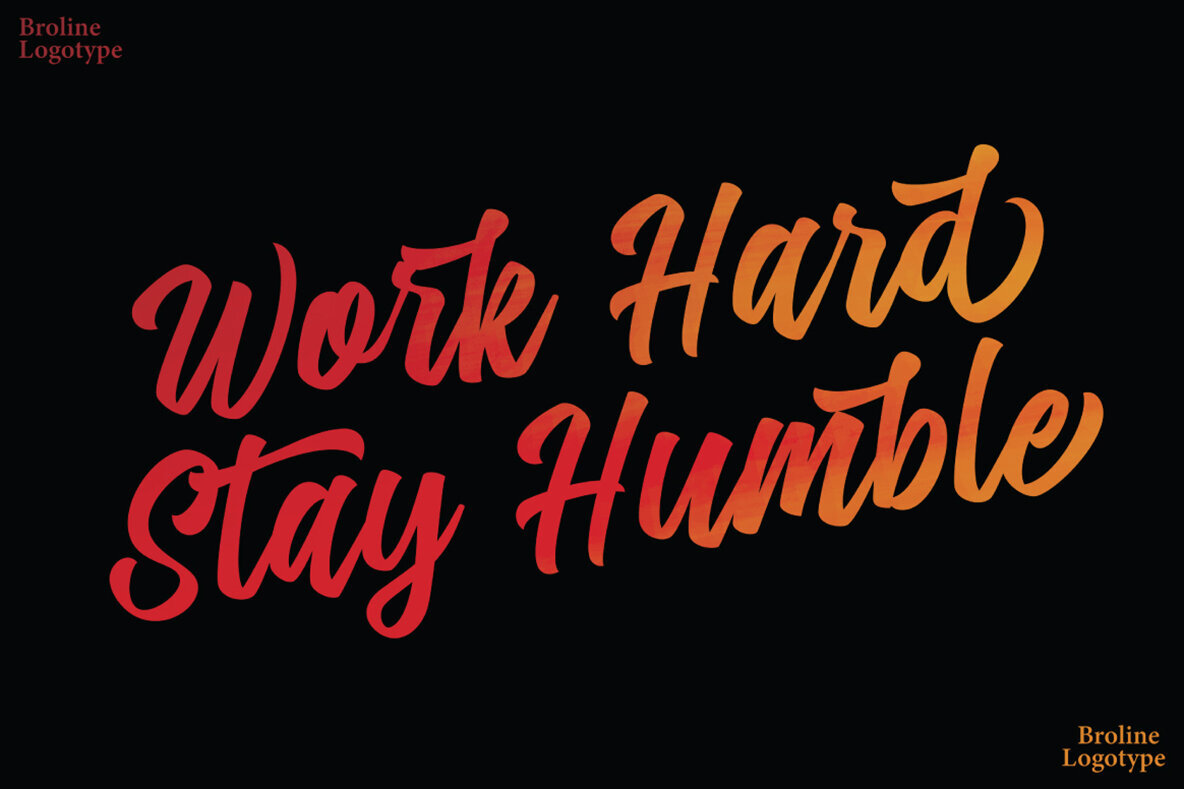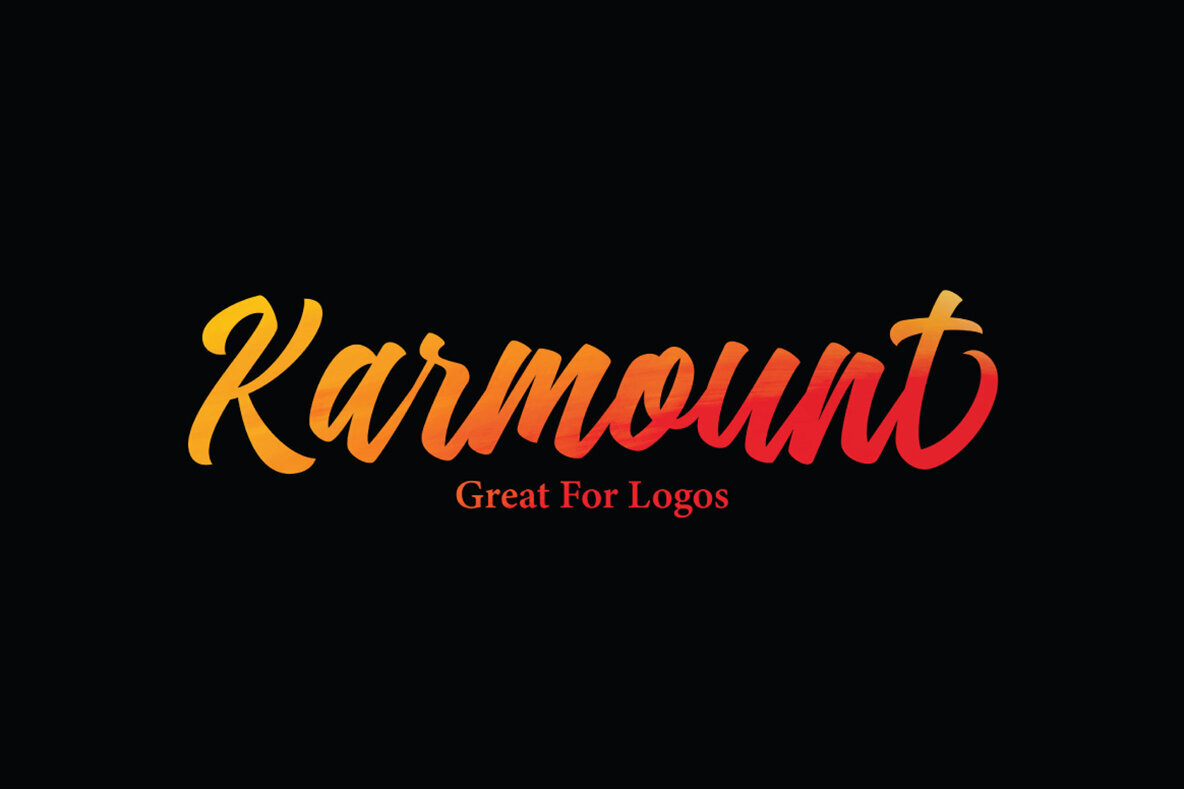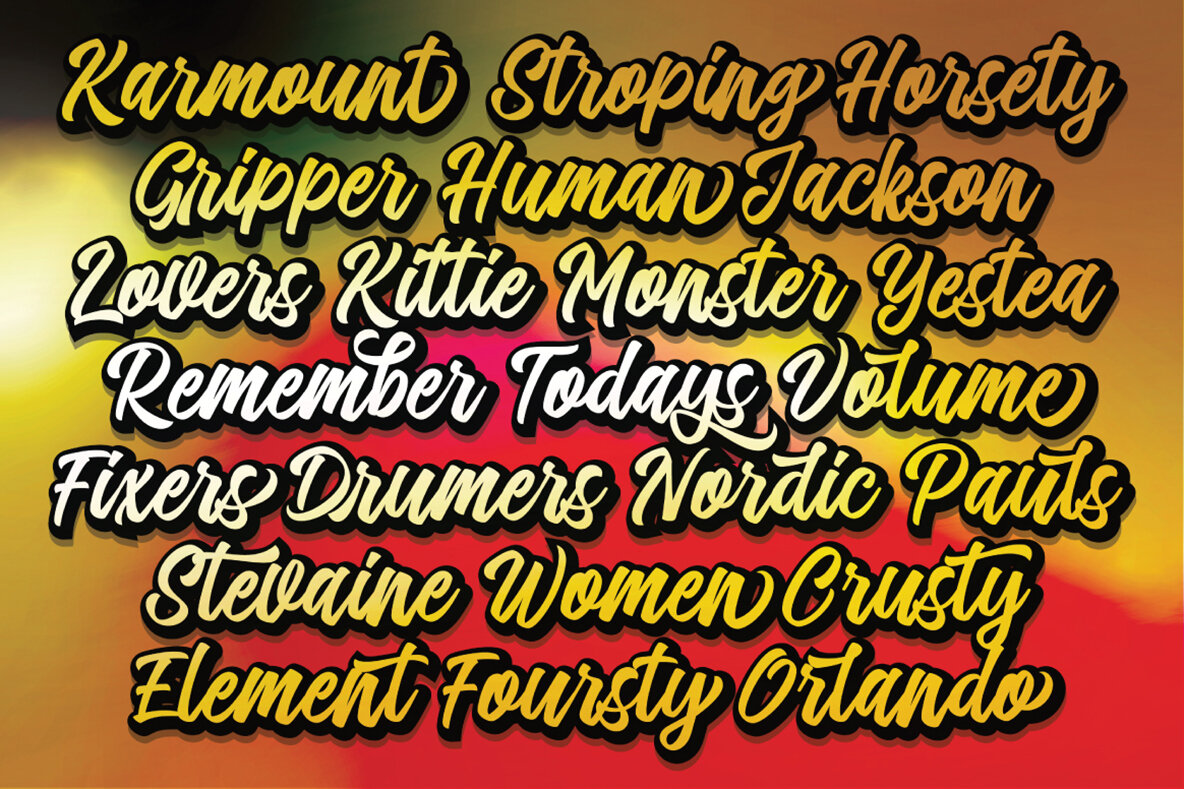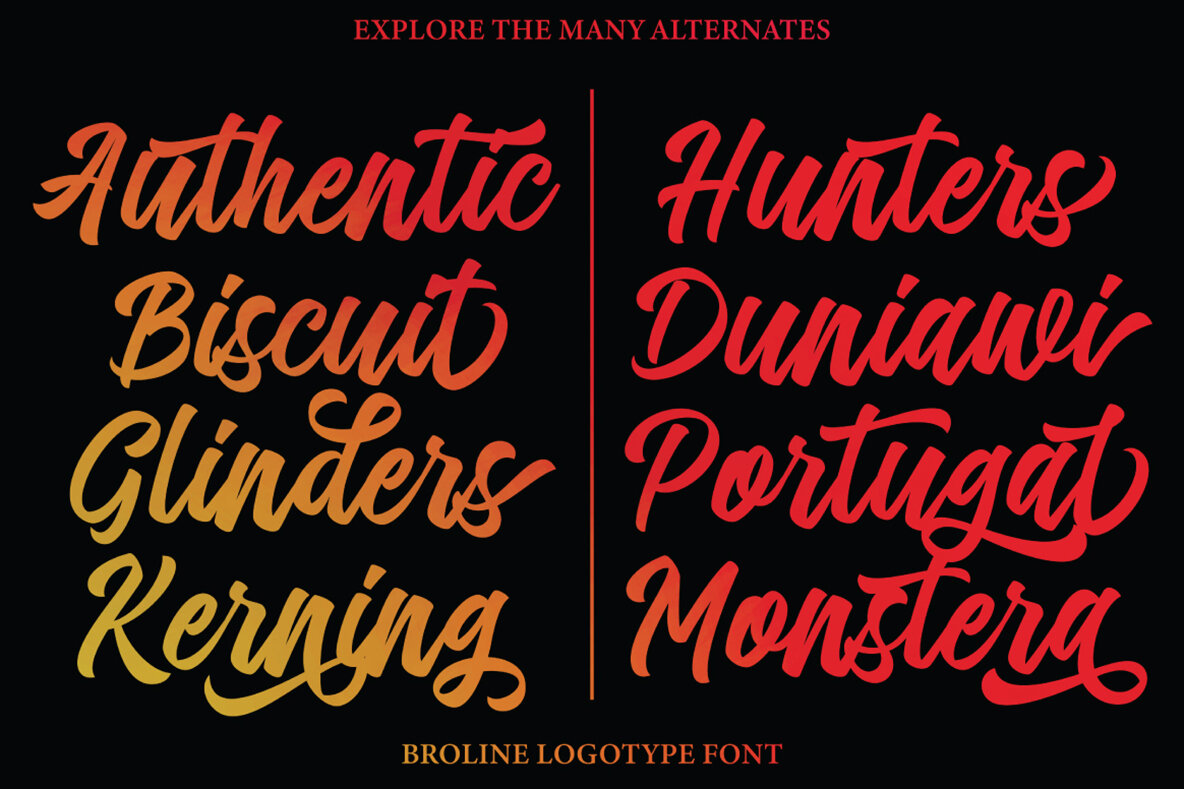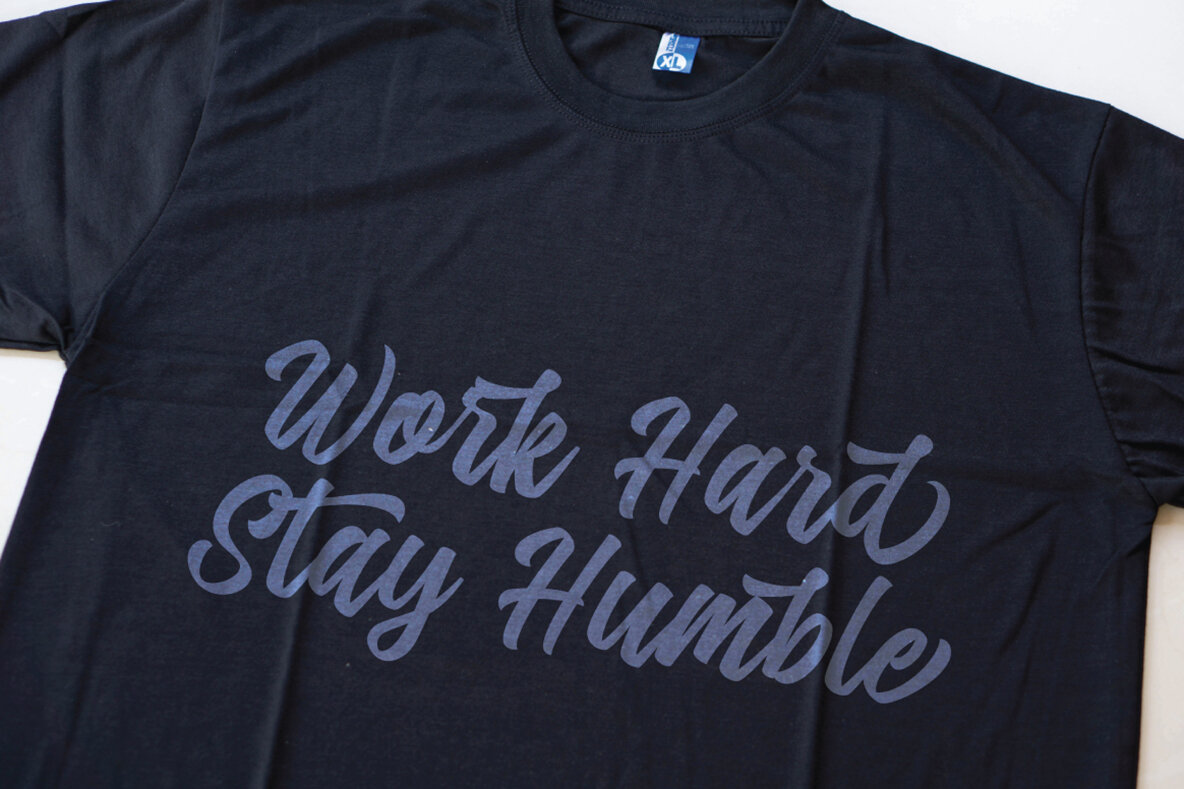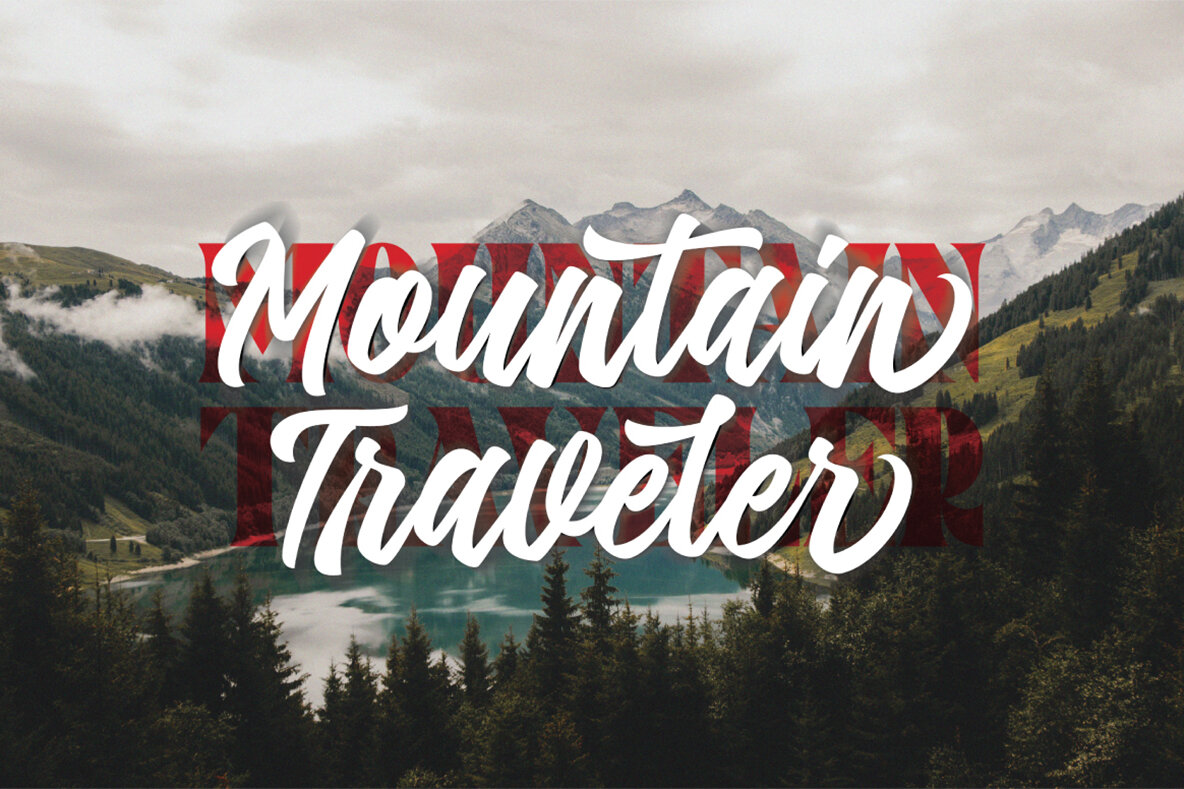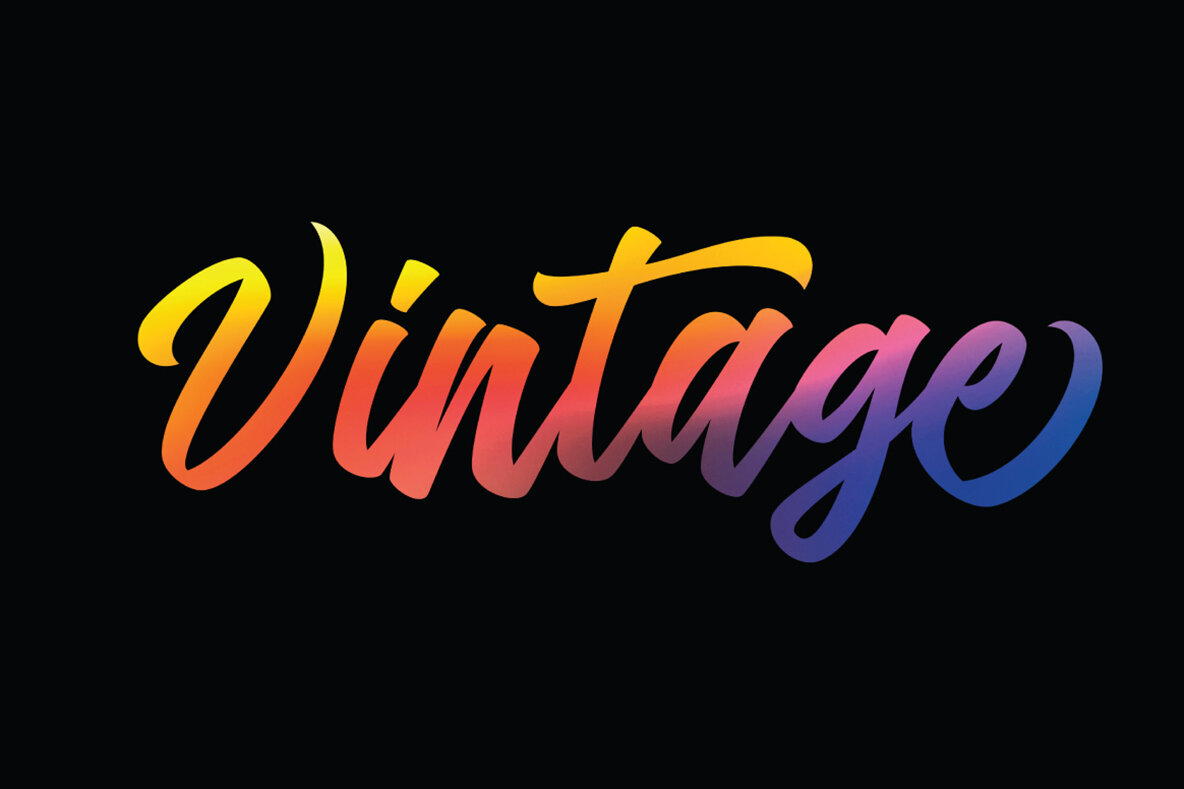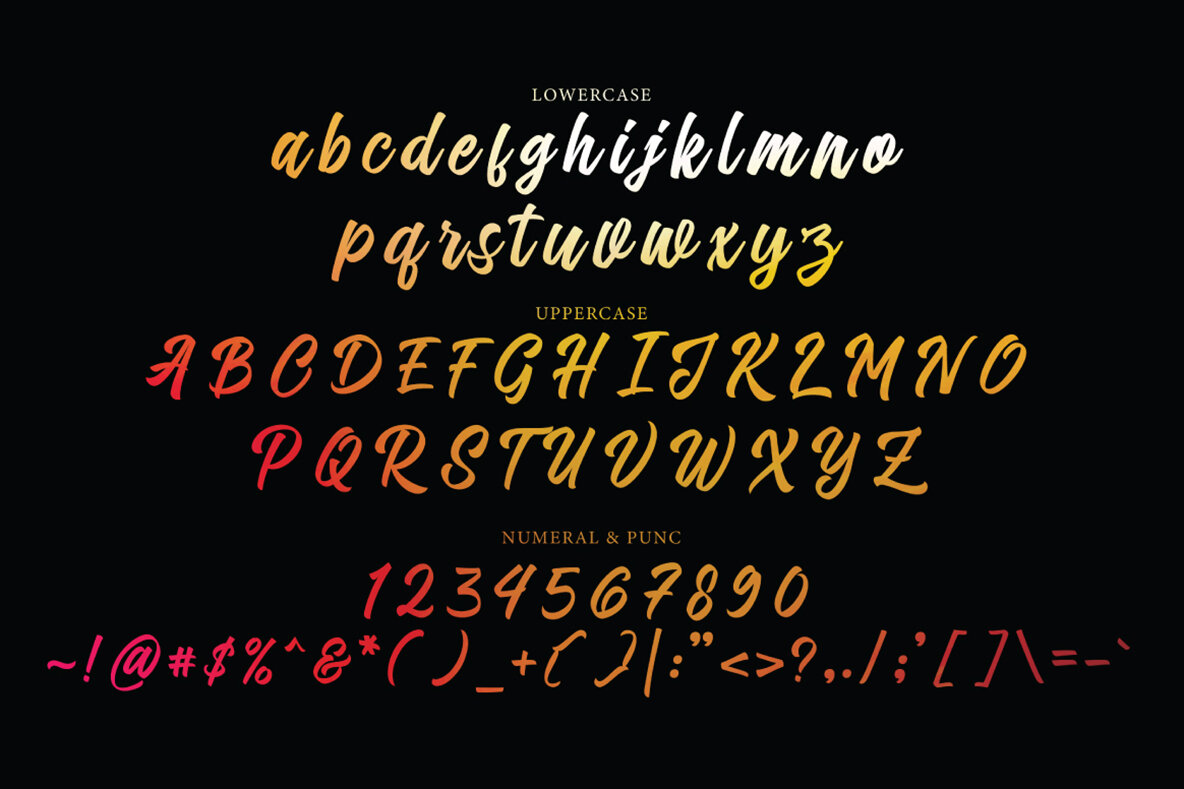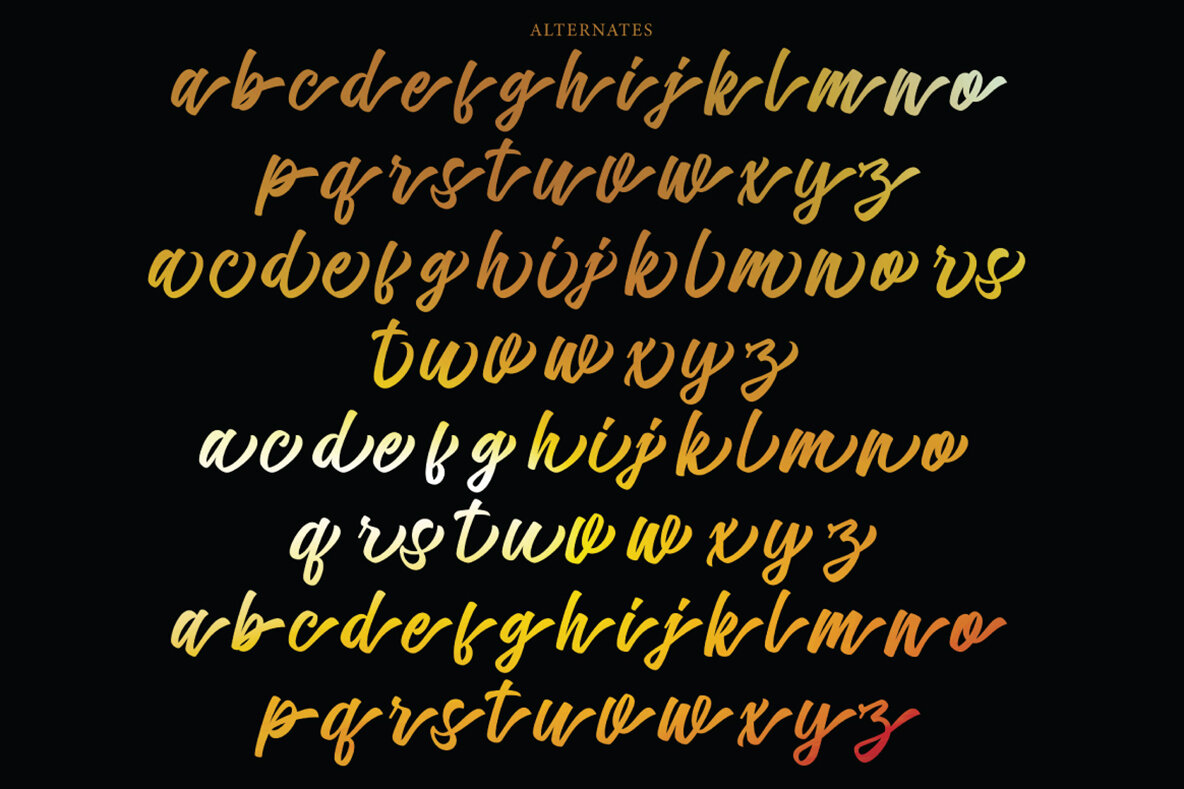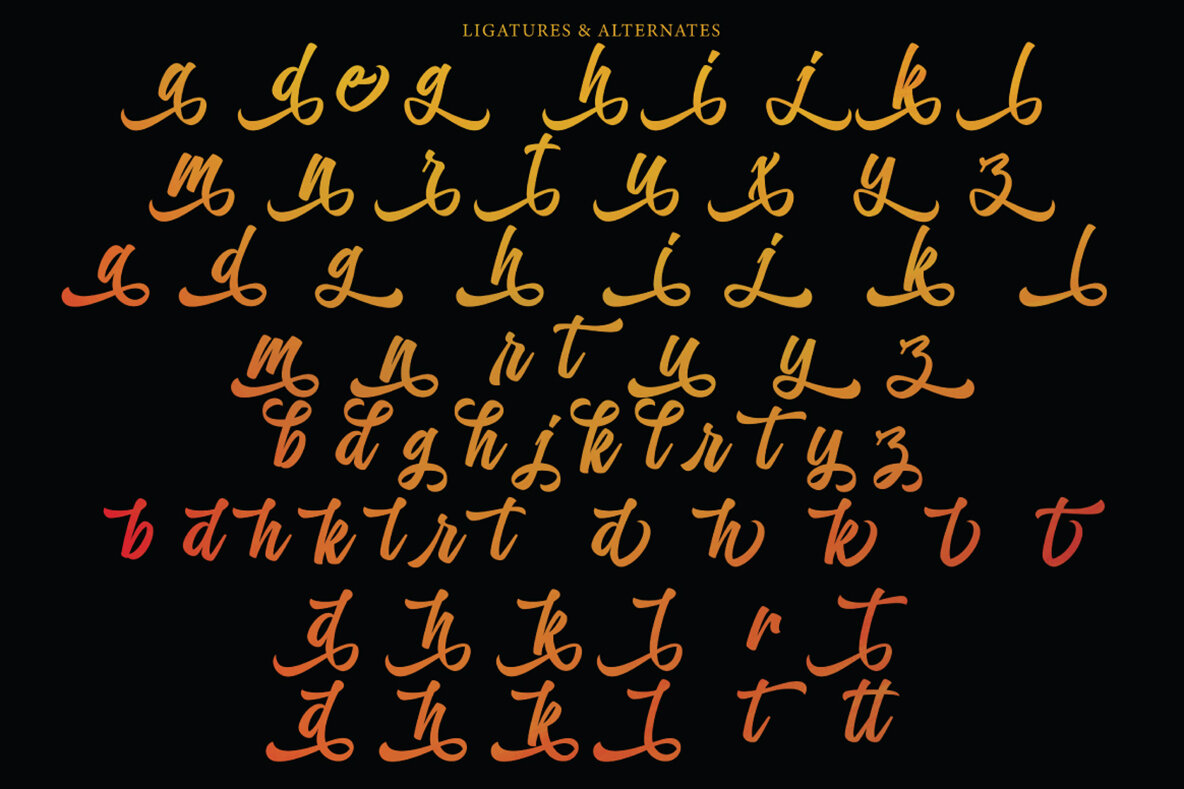
Broline Script Font
Broline Script Regular
Broline Bold Script is a dynamic typeface known for its unique style and versatility. Ideal for various applications, this script font can be used in creating logos, badges, insignias, packaging designs, headlines, and posters. This font boasts alternative characters available through several OpenType features, including Stylistic Alternates, Stylistic Sets, and Ligatures. To fully access these features, use with OpenType-compatible programs such as Adobe Illustrator, Adobe Photoshop, and Adobe InDesign.Broline Script: A Typeface with Distinct Personality